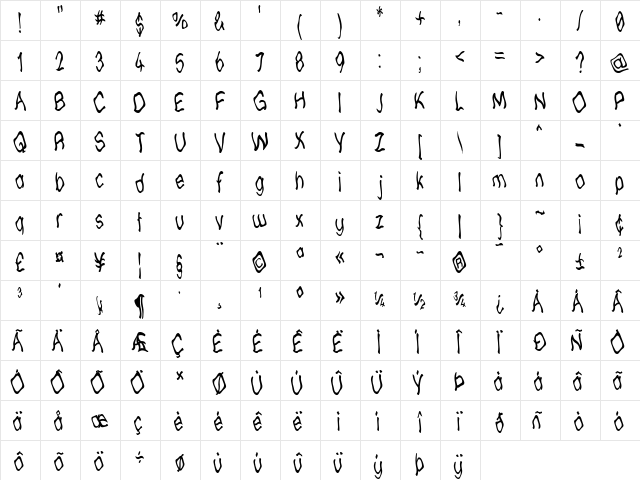
Lost at sea GM Regular Font Preview
Lost at sea GM Regular
Design Context for Lost at sea GM Typeface
Lost at sea GM is a composed and adaptable typeface that performs quietly and consistently across a wide range of design contexts.